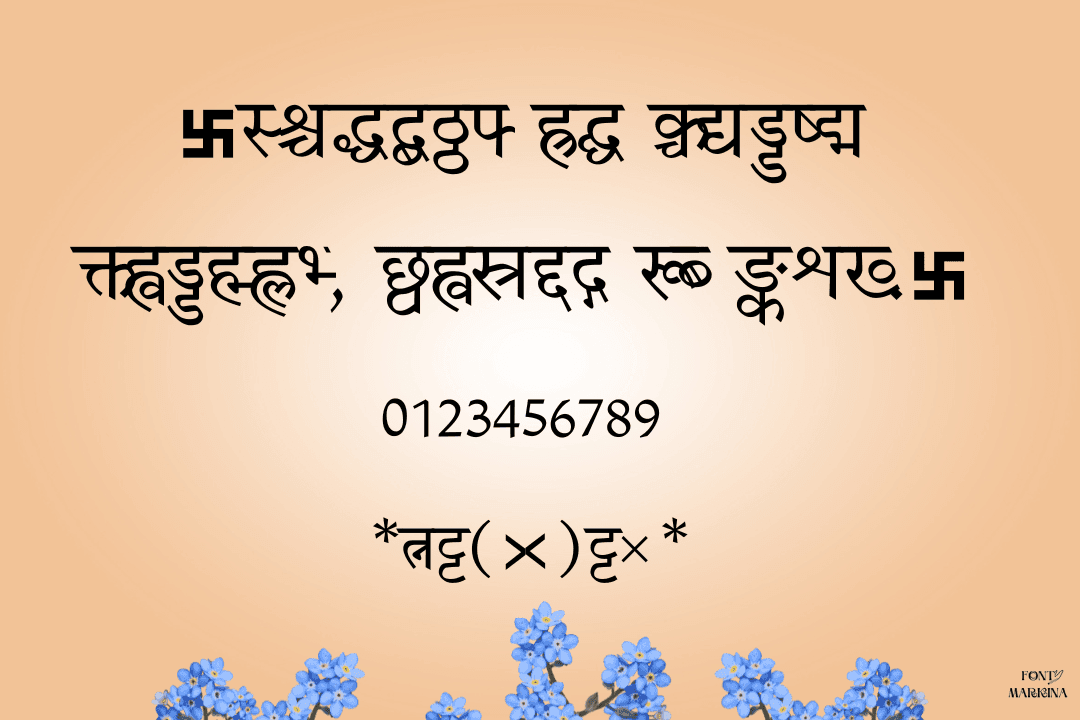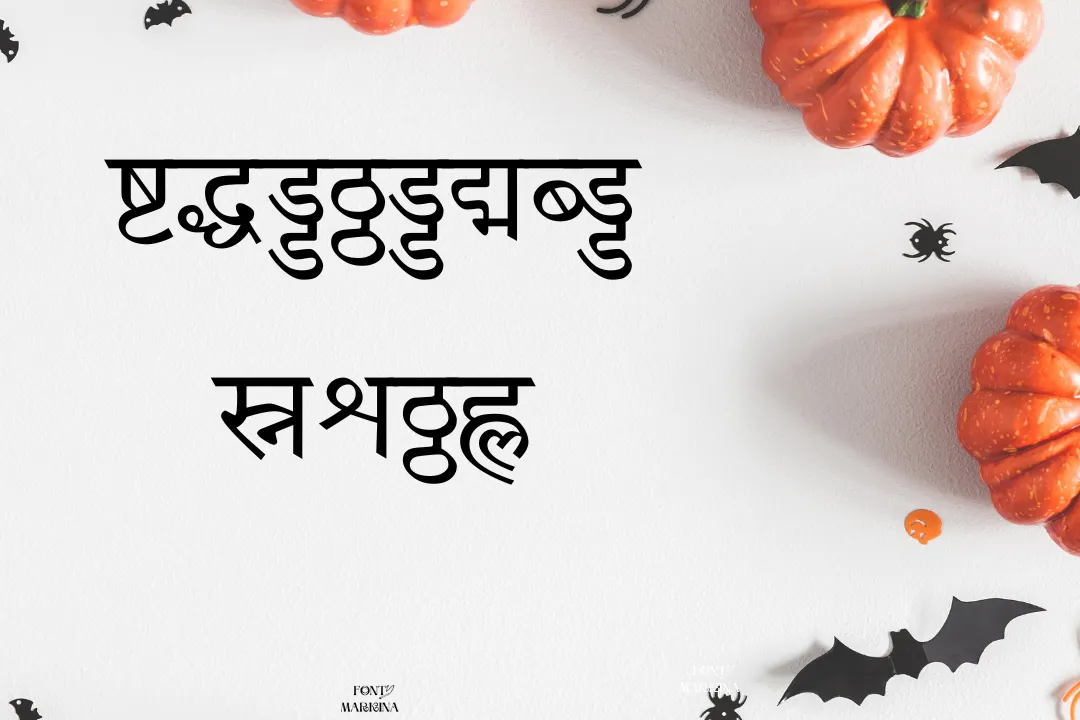
Hey Audience! after hard work and research we are going to present a Hindi font named Chanakya Font. India Type Foundry is the main and real creator of this family. This texture is very effective and perfect for altering Unicode Hindi font.
The most important and amazing feature of this typography is that this family contains two hundred and twenty-seven classic glyphs. This is the reason for its worth and support to various languages. You can also explore this family on google.
Here, another Samarkan font is very closest to this typography. The bold characters of this typography make it well-suitable for wonderful themes and design projects, The online tool of this family known as the generator tool is best for colorful graphics.
Who Can Use Chanakya Font
Especially, this font is used in the Hindi language for forming the short and long text. That is why it is famous as a Hindi font all across the globe. Its round corners make this family best for all graphic as well as web design projects.
You can also utilize this family for Windows 7 and Windows 10 also. It is helpful in case of creating cards and invoices as your clients wish. All clothes companies and official institutions use this texture for their higher projects and plans. Also, for effective designs make the pairing Kurti dev 010 font with this texture.
one more amazing use of this font is for headlines and titles. You can also use this typography for the names of all restaurants and different hotels names. Whatever the use of this family is very classic in a vast variety of fields related to designs.
Chanakya Font View
| Name | Chanakya Font |
| Designer | India Type Foundry |
| Type | Hindi |
What is chanakya font?
It is a famous Hindi Font with different wonderful characters and glyphs.